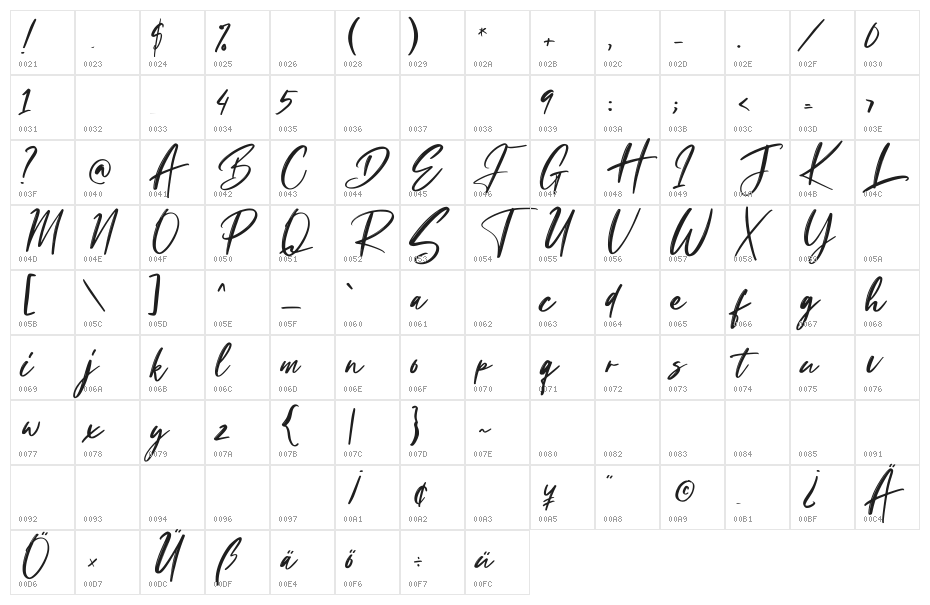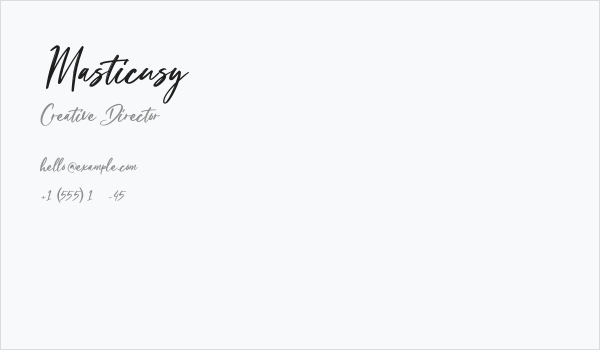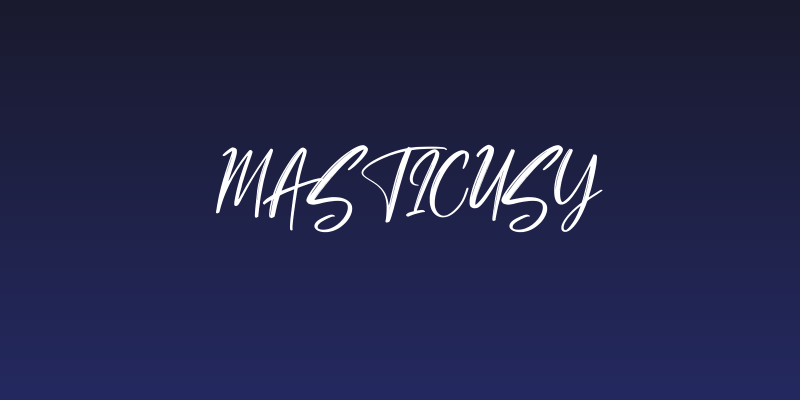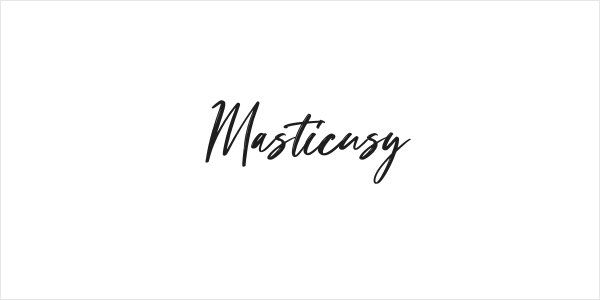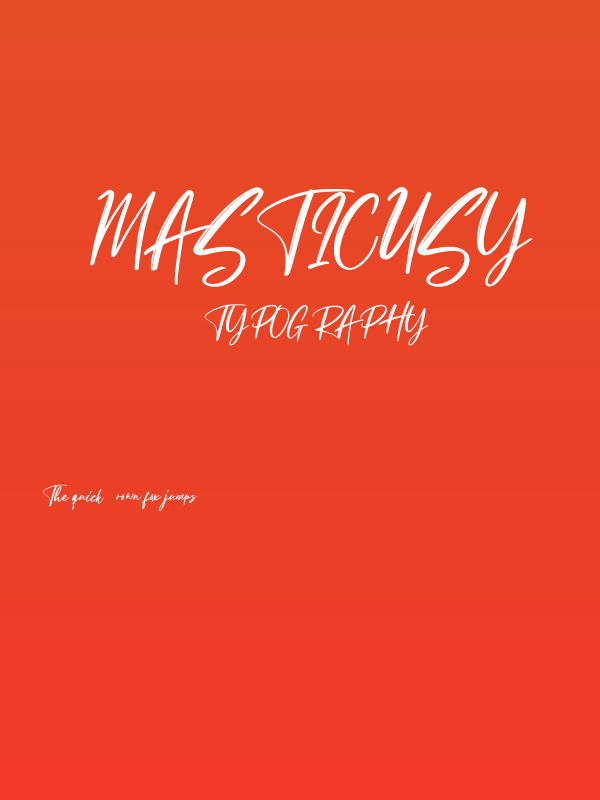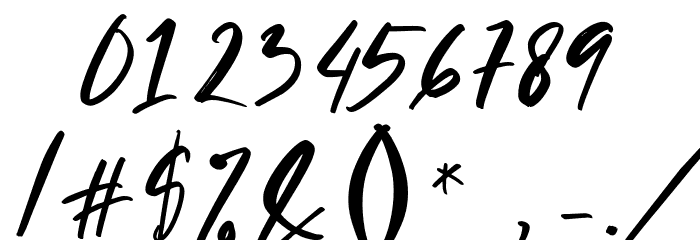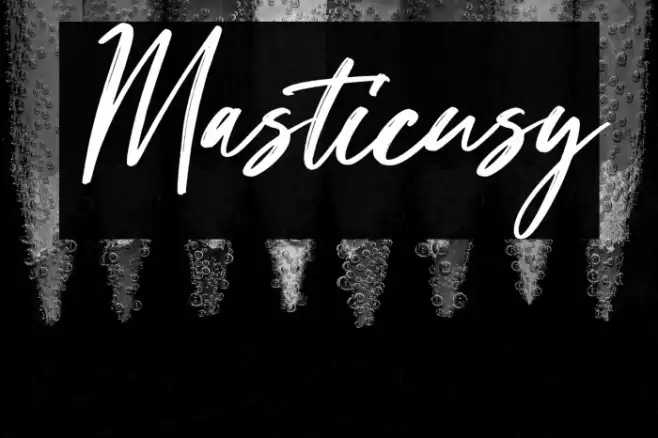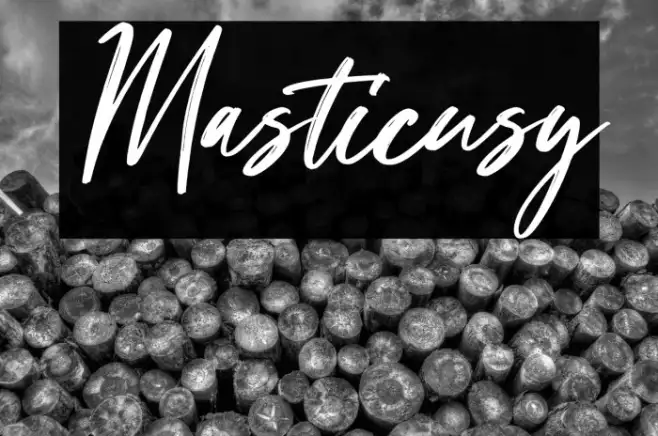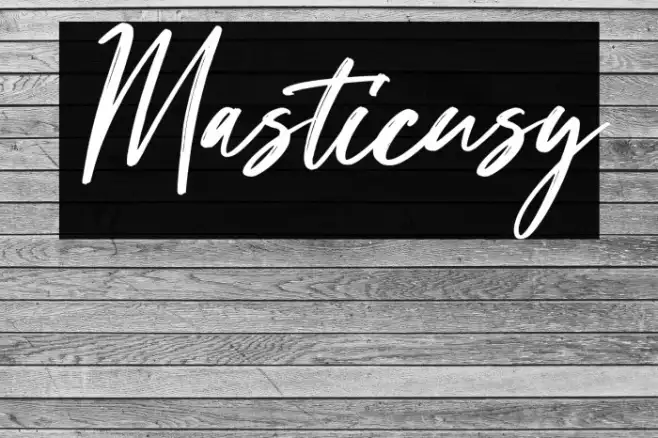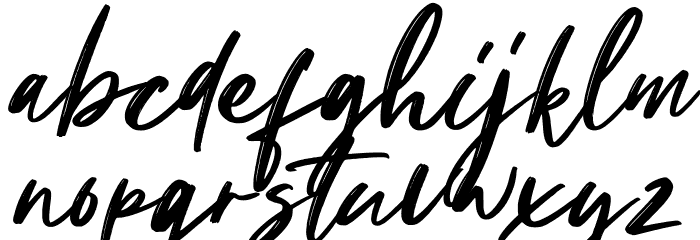
Masticusy Font
This font features a dynamic and expressive script style, characterized by its fluid, cursive strokes that convey a sense of movement and elegance. The uppercase letters are bold and sweeping, with a slight slant that adds to the overall flow of the design. The lowercase letters maintain a consistent rhythm, with smooth connections between characters that enhance readability while preserving the handwritten aesthetic. Numbers and special characters are crafted with the same attention to detail, ensuring a cohesive look across all elements. The font's energetic and artistic nature makes it suitable for creative projects that require a personal touch.
| Proposed Projects | Ideal for wedding invitations, branding, logos, and artistic projects that require a personal and elegant touch. |